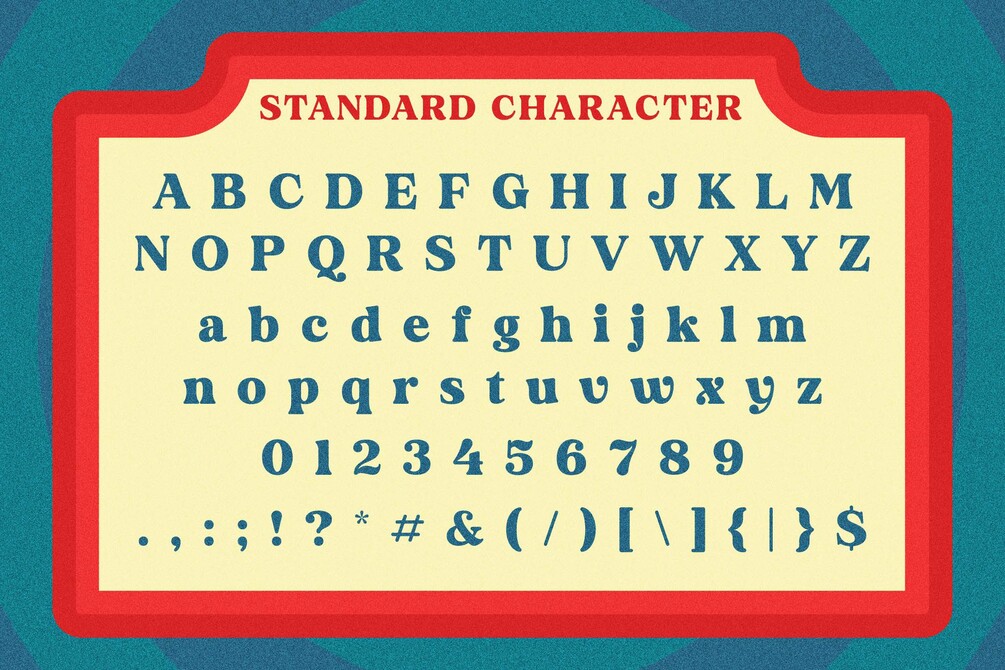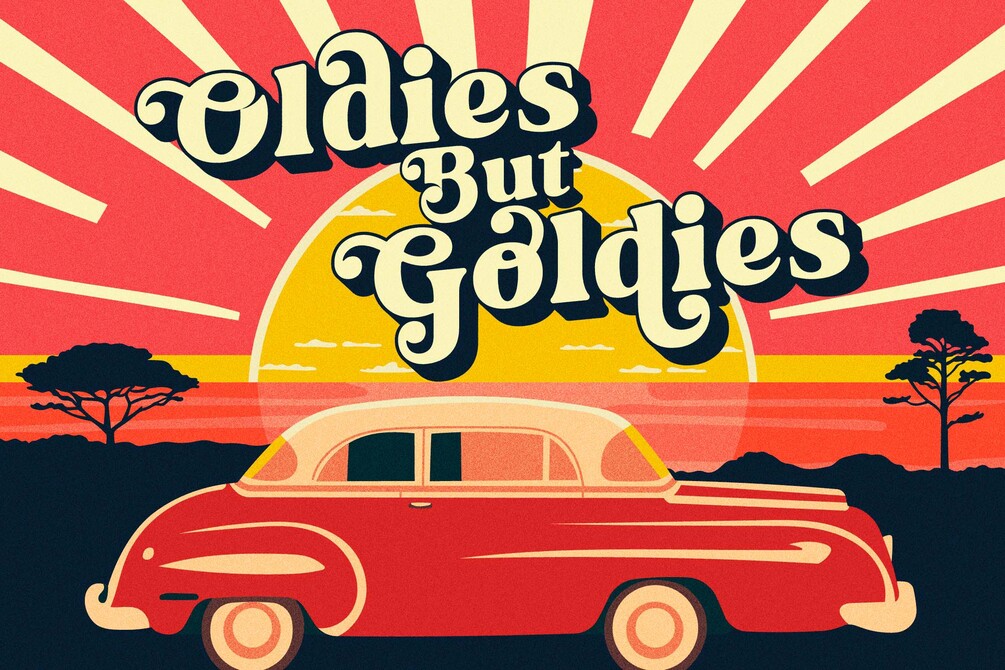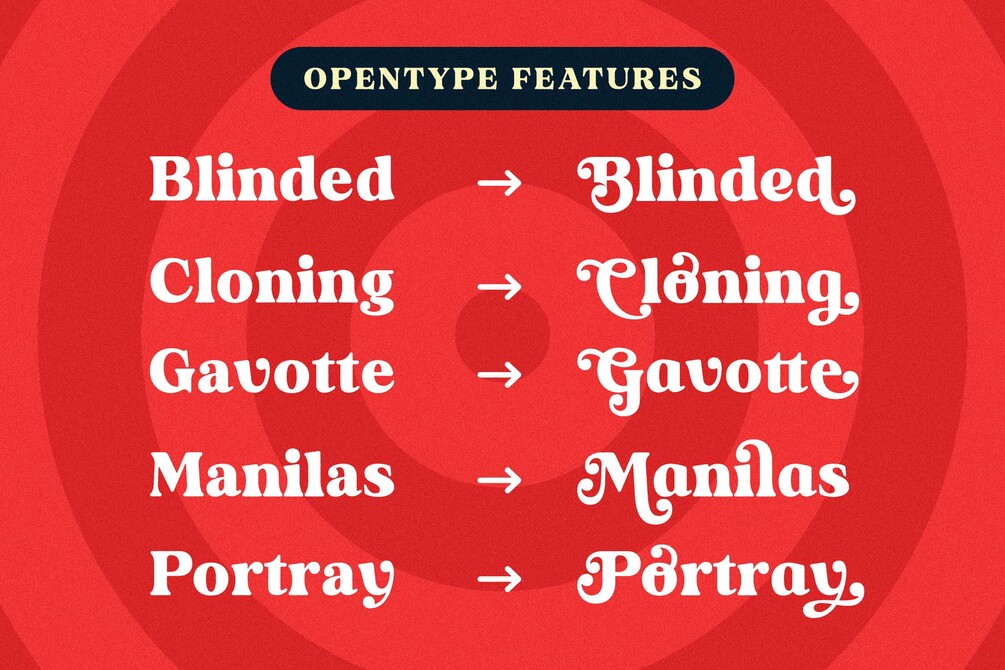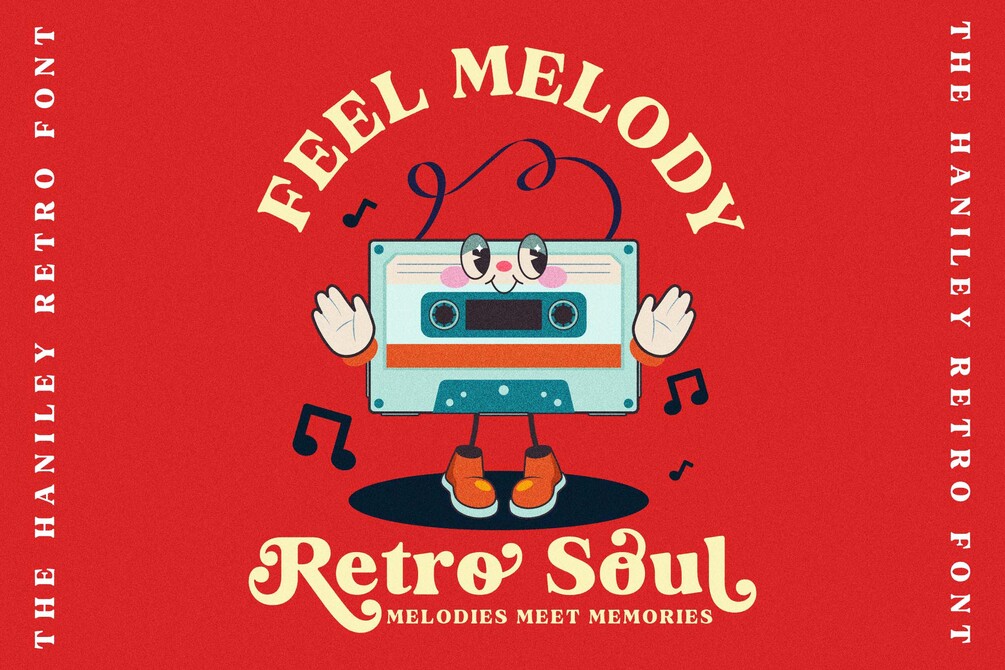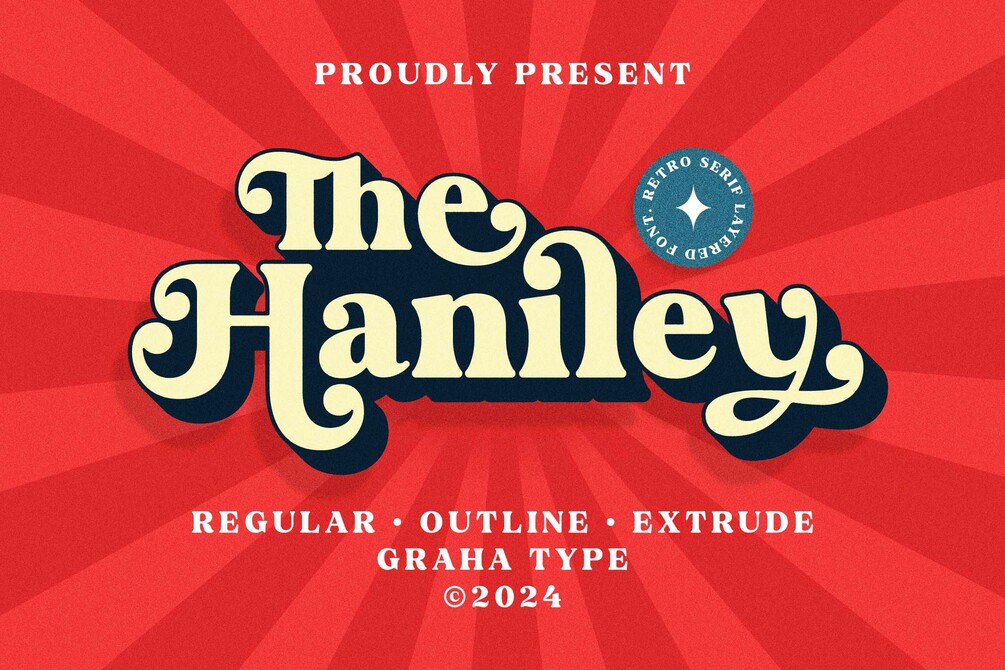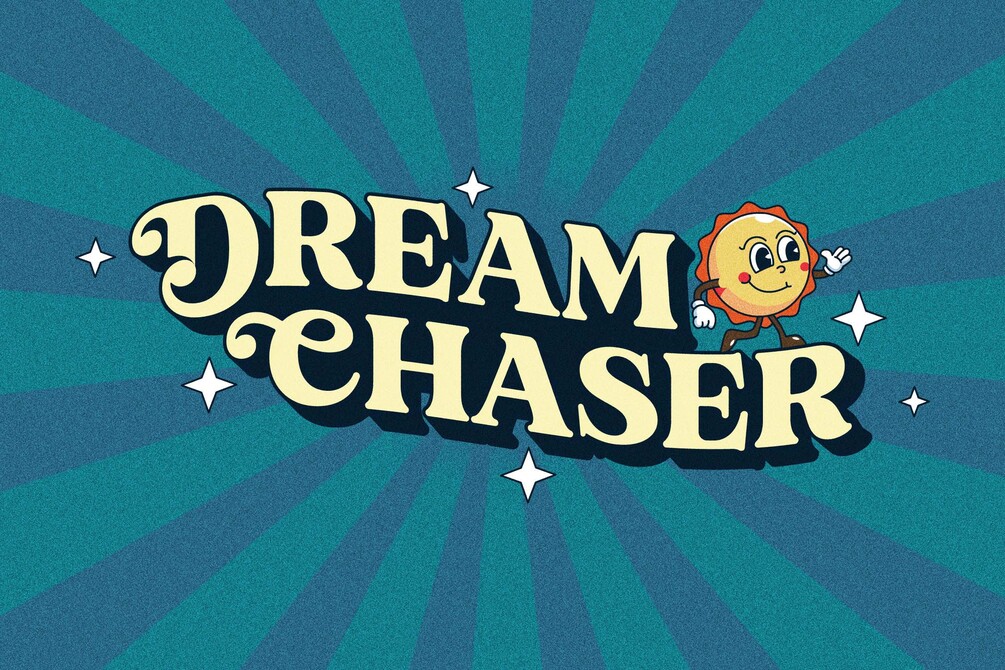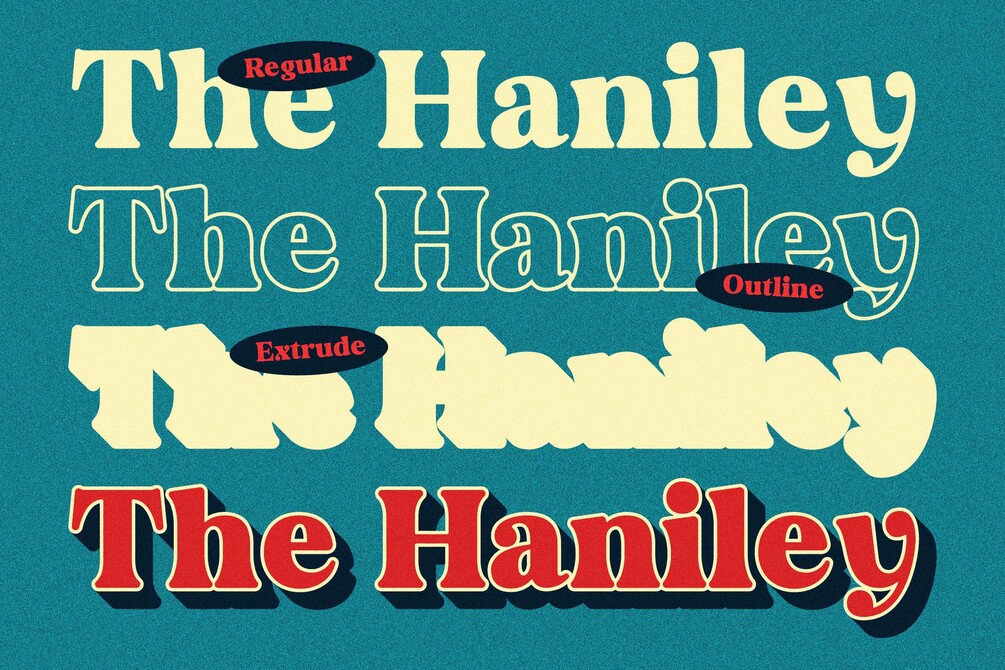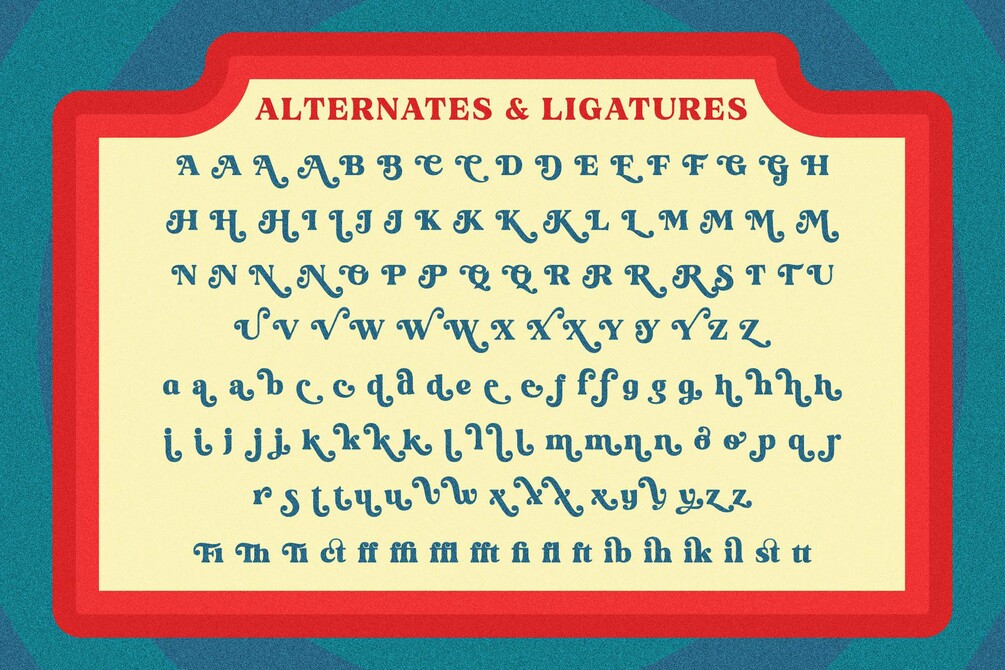
The Haniley - Retro Serif Font
The Haniley is a serif font with retro feel. It's perfect for logotype, poster, branding and merchandise. This font adds a touch of uniqueness to your designs, making it great for creating standout design. Whether you’re working on a brand or a special project, The Haniley brings an elegant and timeless look to your work.
Alternates and Ligatures